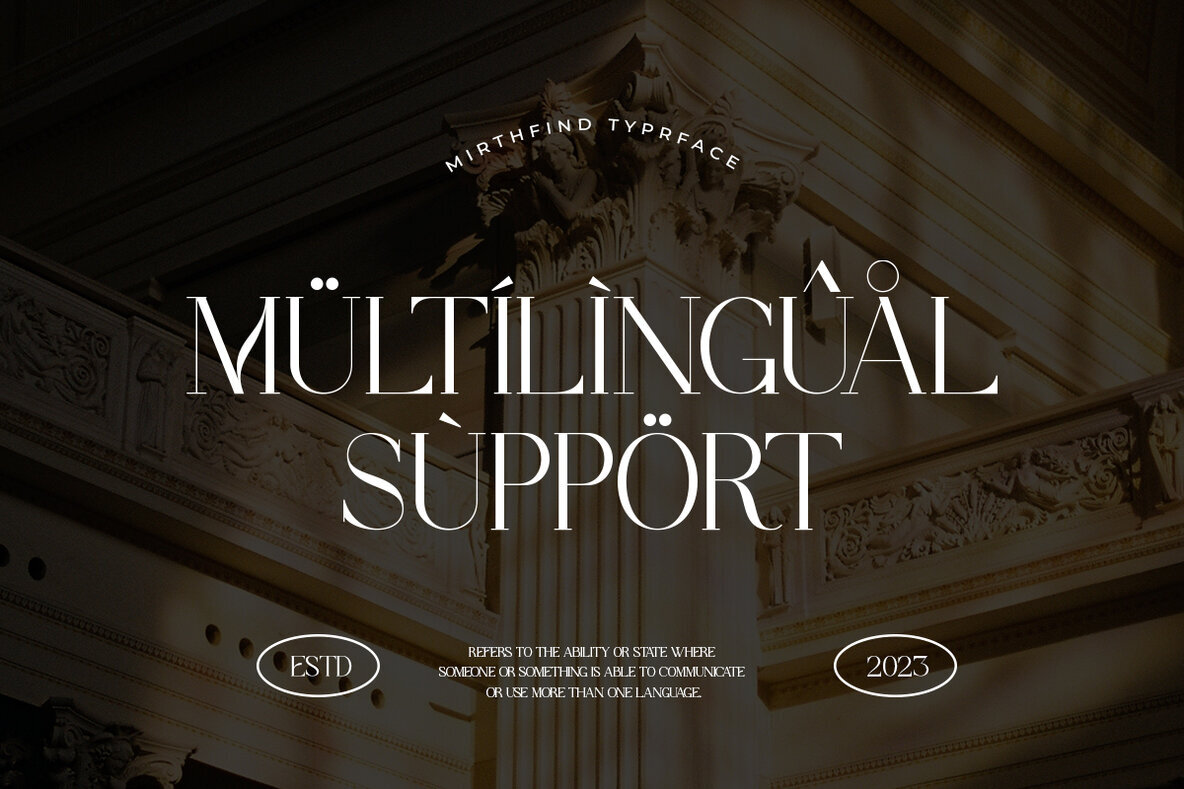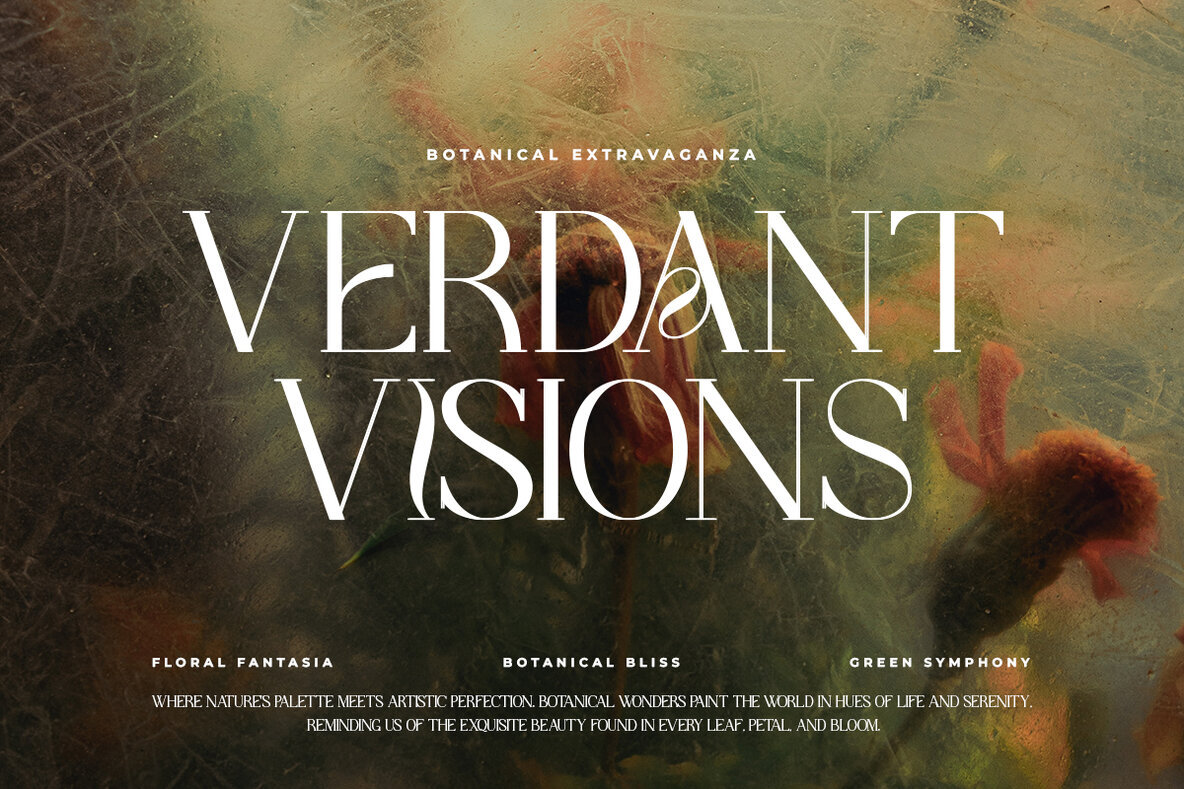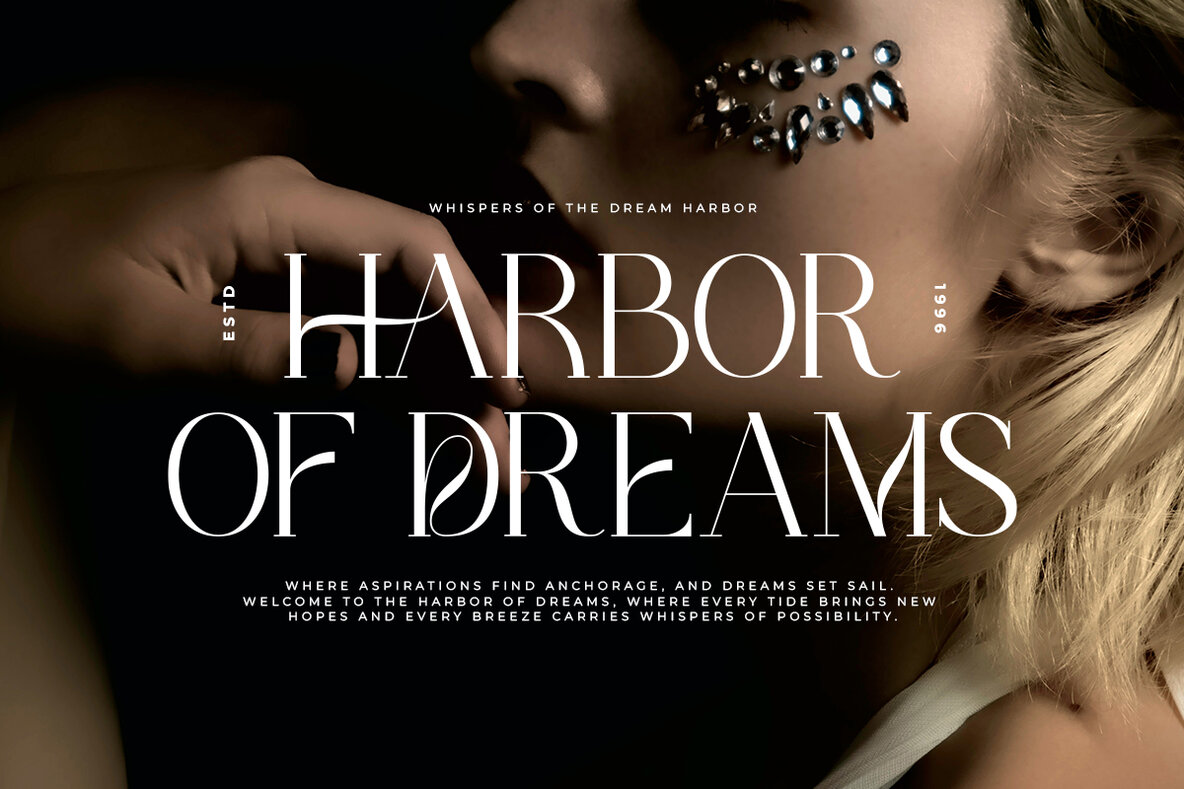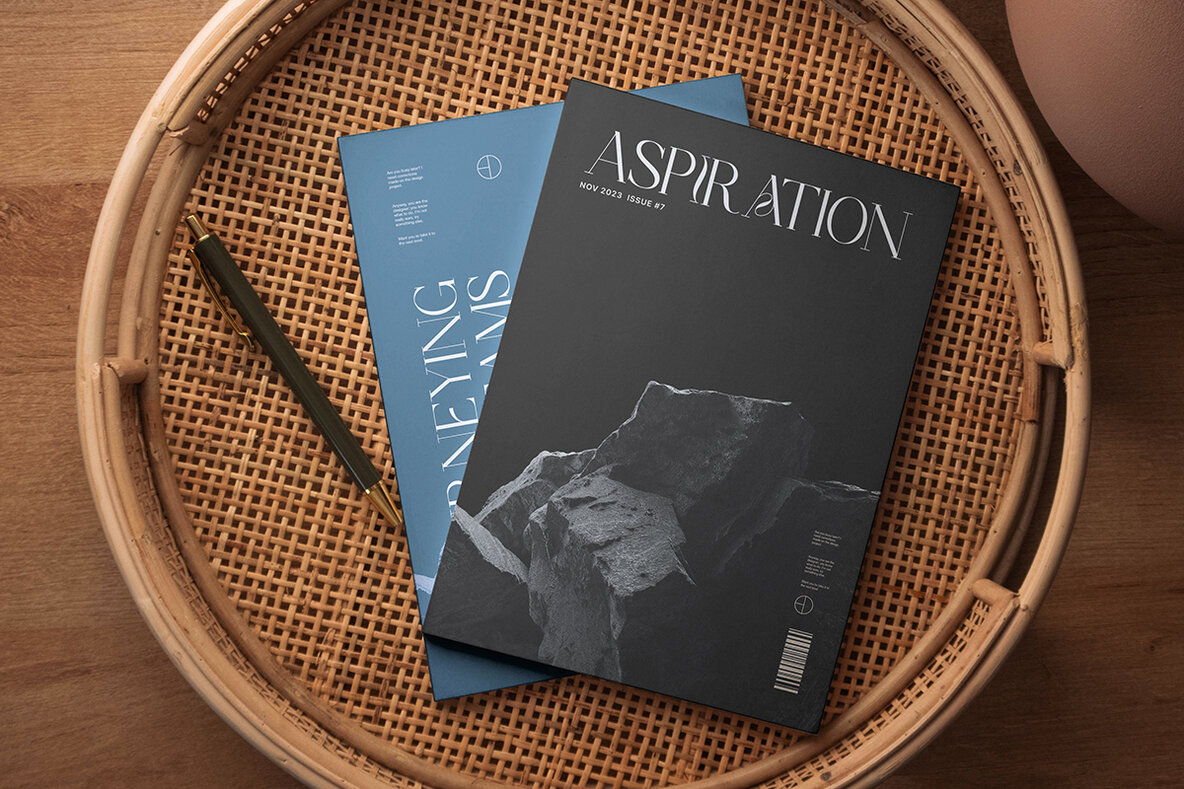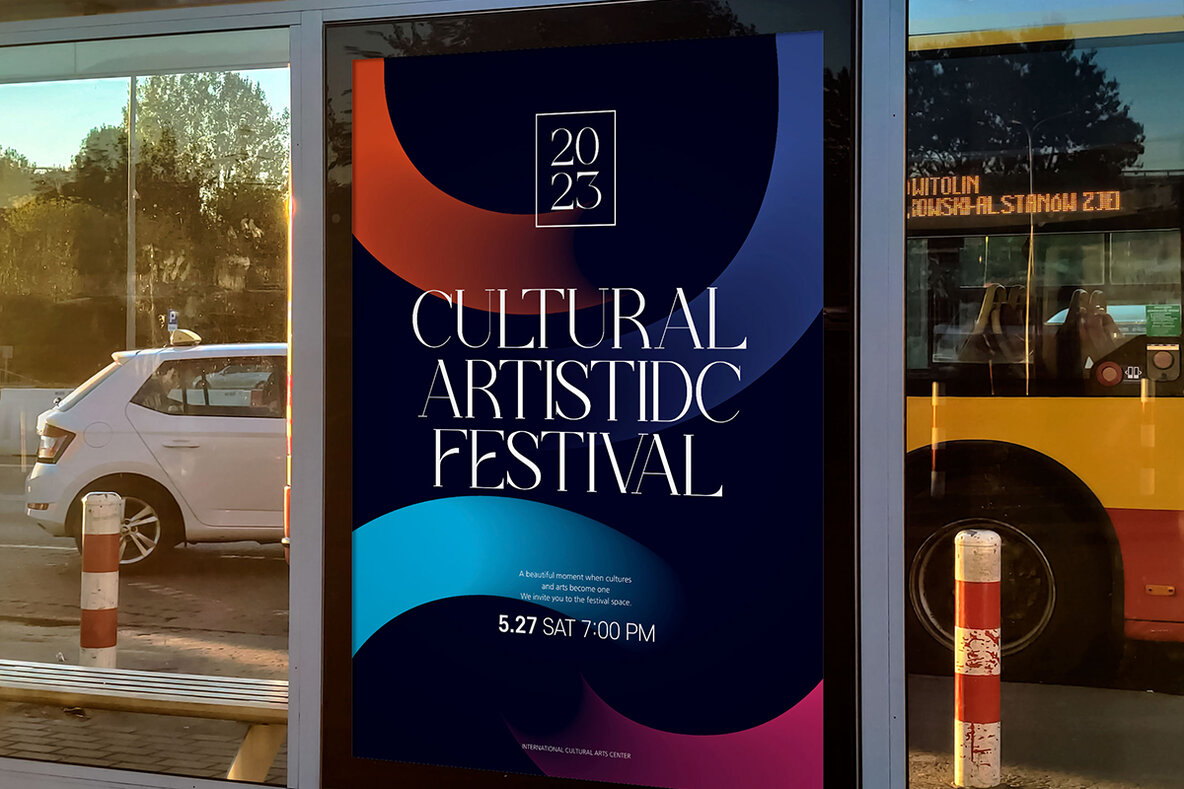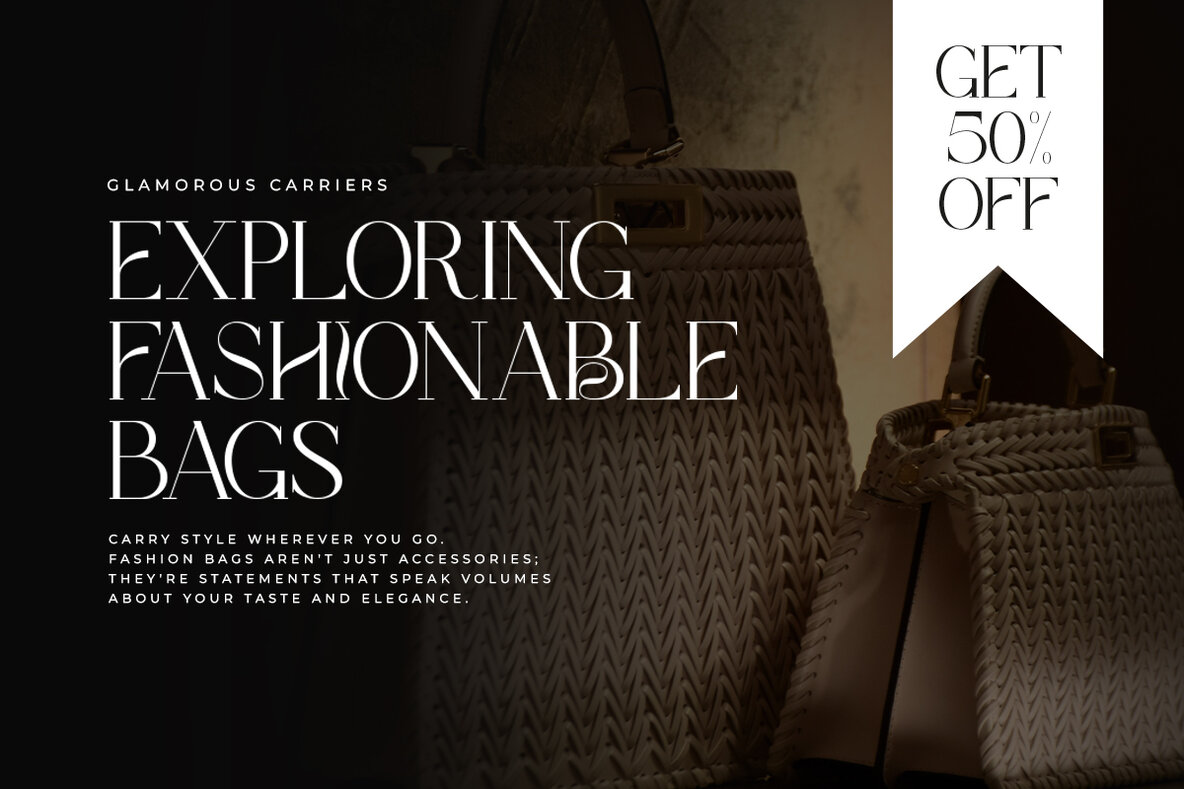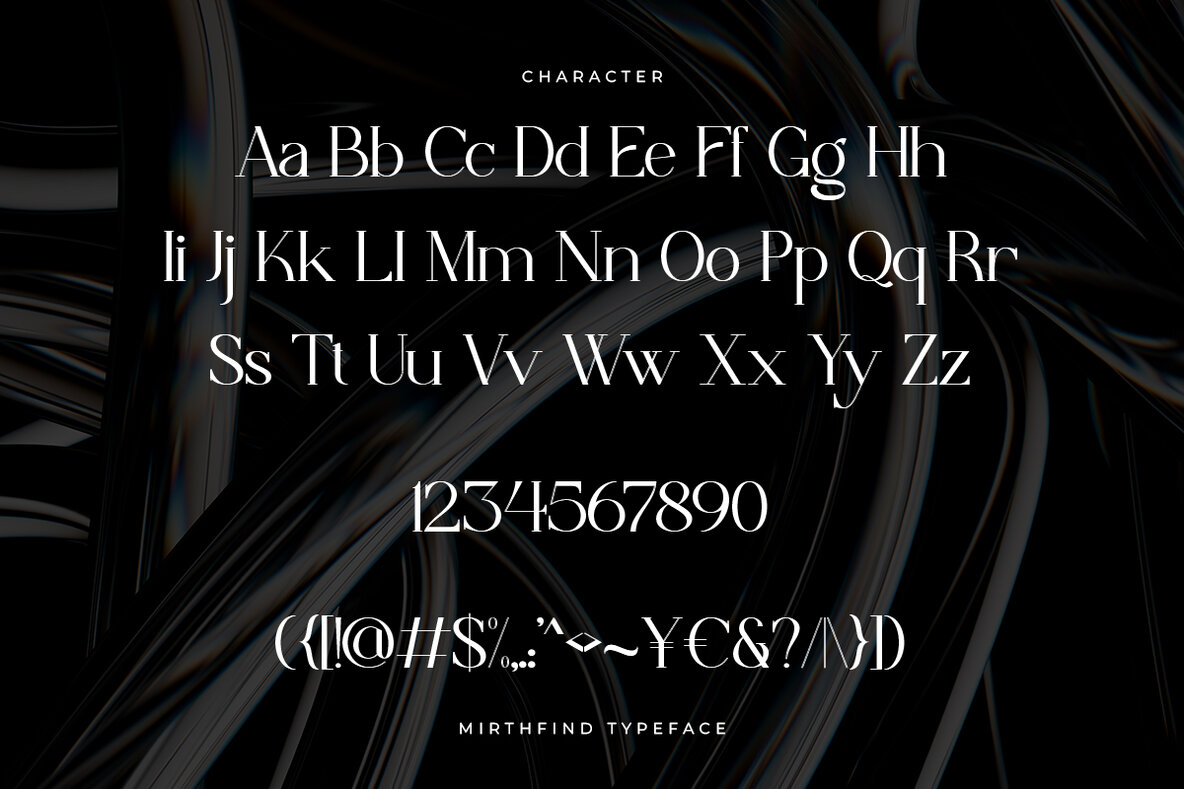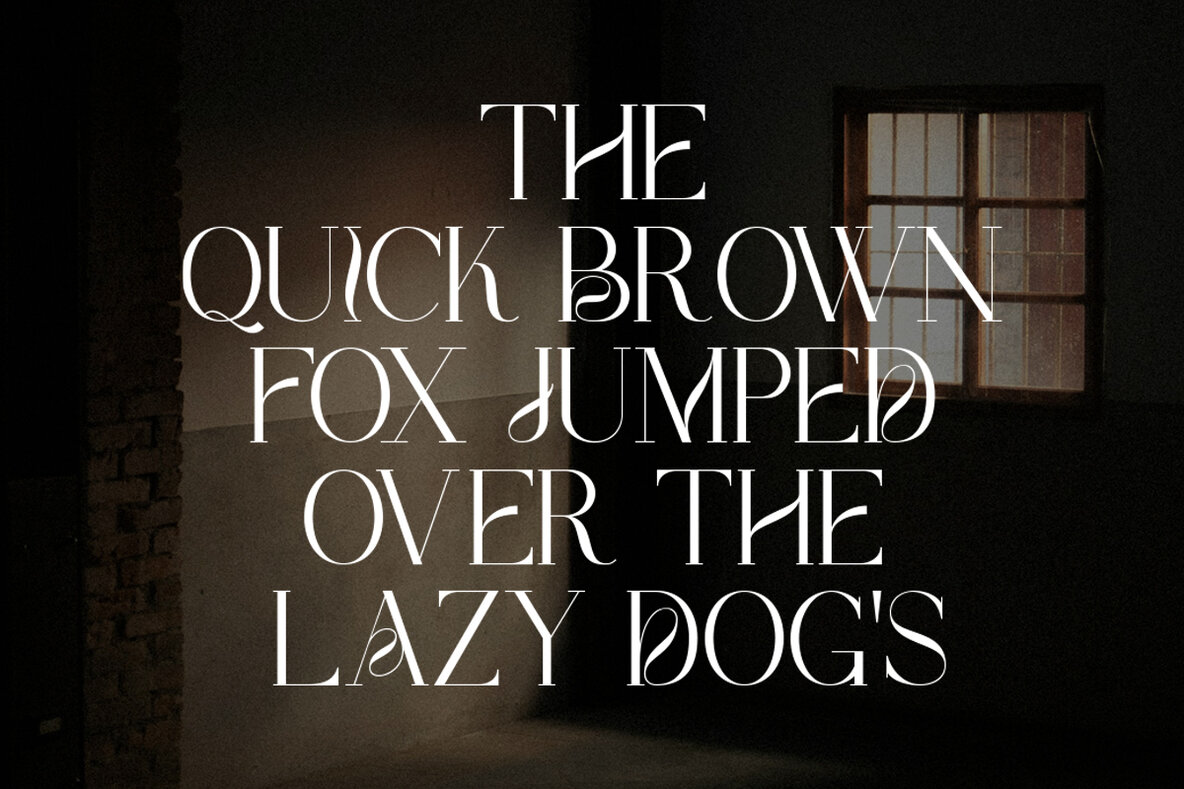
Mirthfind Font
Mirthfind is a sophisticated serif typeface that offers unique alternates, multilingual support, and precise kerning. This typeface is ideal for creating an elegant and luxurious appeal in logos, editorial designs, women's magazines, fashion and cosmetic brands, promotional materials, modern advertisements, invitation cards, art quotes, home decor, book covers, and special event graphics. If you encounter any issues or have feedback, please feel free to reach out to us. We appreciate your input and look forward to enhancing our products further.Mirthfind: Elegant Serif Typeface with Unique Features
Key Features